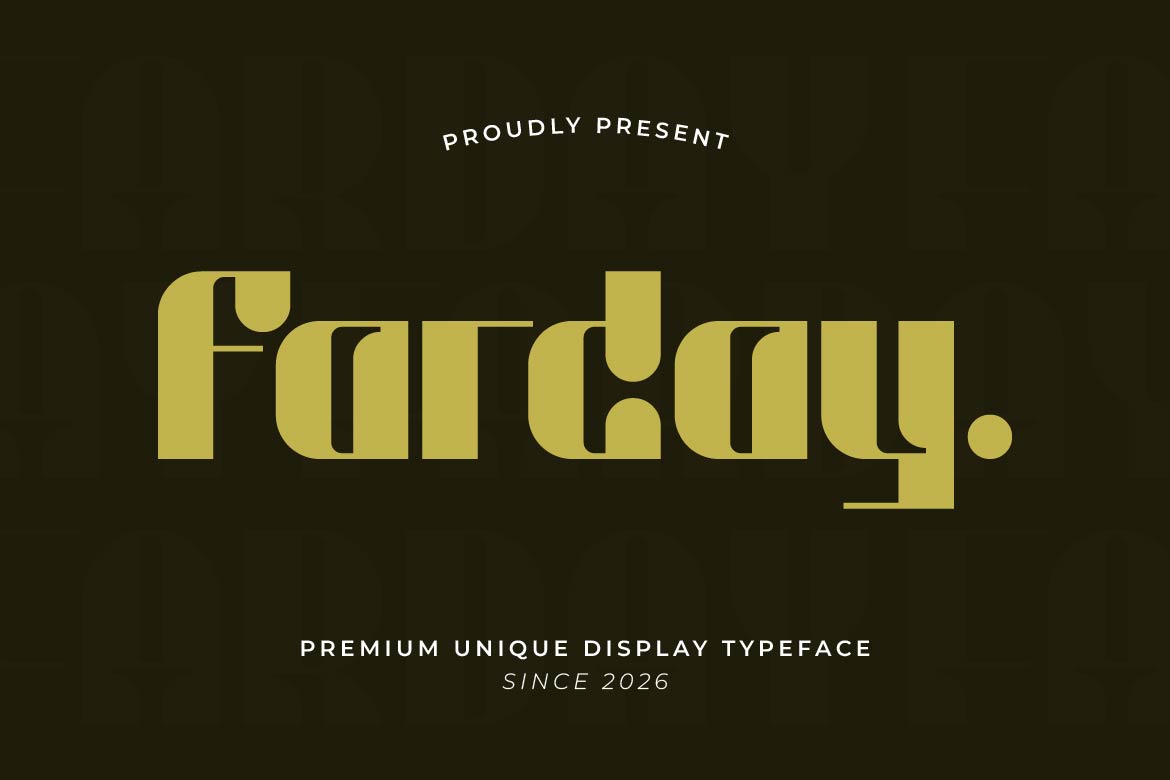
- Farday – Display Logo Font
Great typography doesn’t just communicate—it creates emotion. Farday is a unique creative display font designed to give every headline, logo, and visual identity its own unmistakable personality.
Built with expressive letterforms and contemporary styling, Farday transforms ordinary words into bold design statements. Every character is carefully crafted to balance creativity with readability, making it an excellent choice for designers who want typography that feels original without becoming difficult to use.
Farday shines across branding, album artwork, YouTube thumbnails, product packaging, fashion collections, café identities, event promotions, streaming graphics, editorial headlines, and social media campaigns. Its versatile display style allows it to adapt effortlessly to both playful and premium creative concepts.
Whether you’re designing for a fast-growing startup, an independent clothing label, a music project, or a content creator building a recognizable visual identity, Farday provides the confidence and individuality that modern brands demand.
Designed for creatives who refuse to blend in, Farday helps every project feel energetic, memorable, and unmistakably unique.
Farday isn’t just a display font—it’s the visual voice of brands that dare to be different.